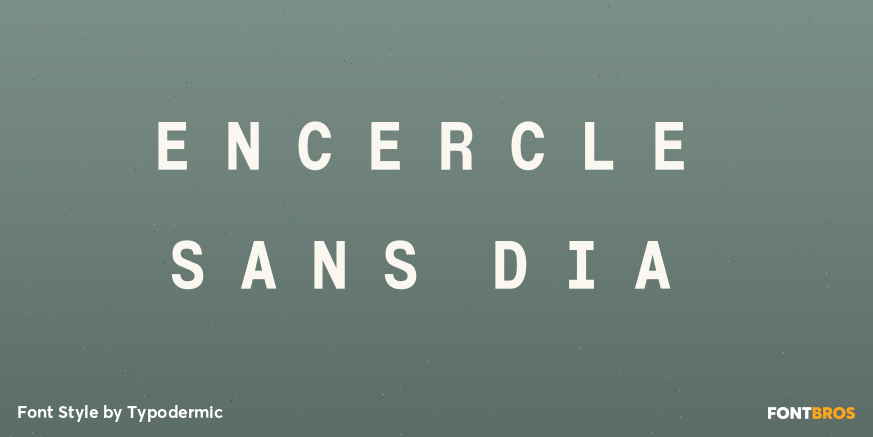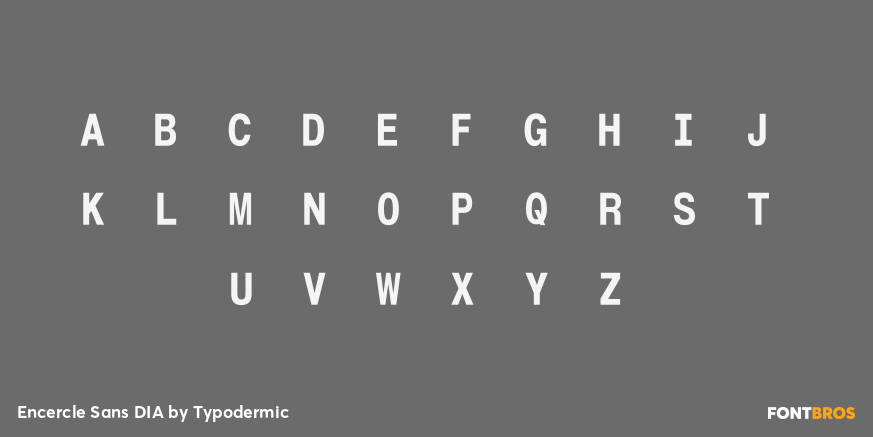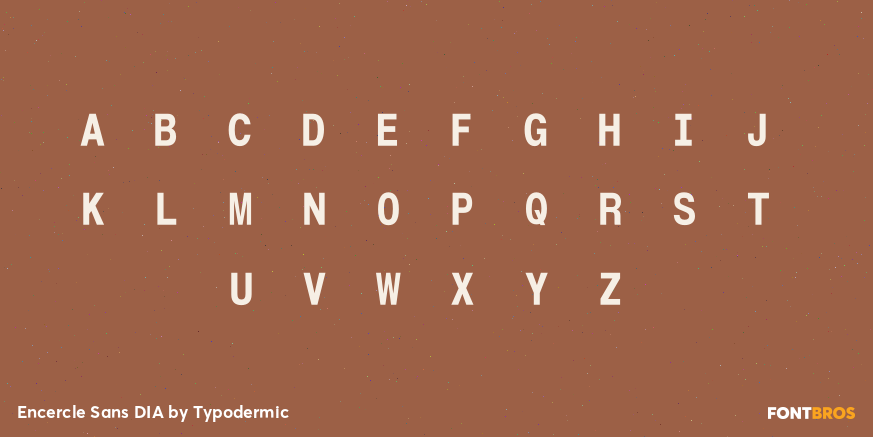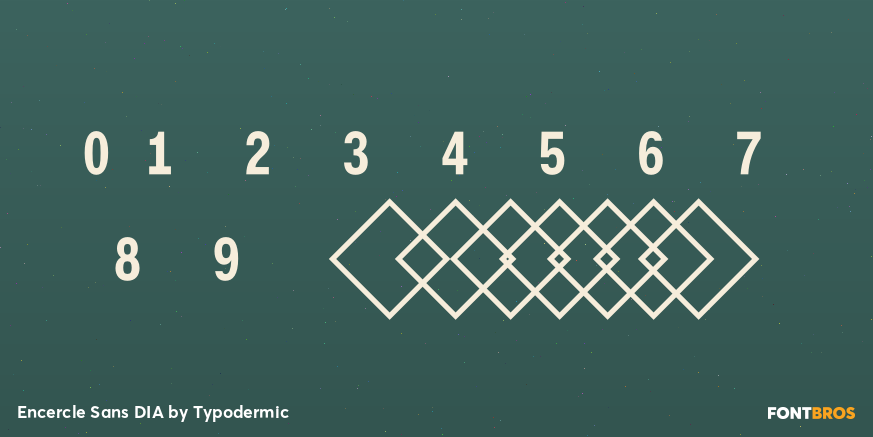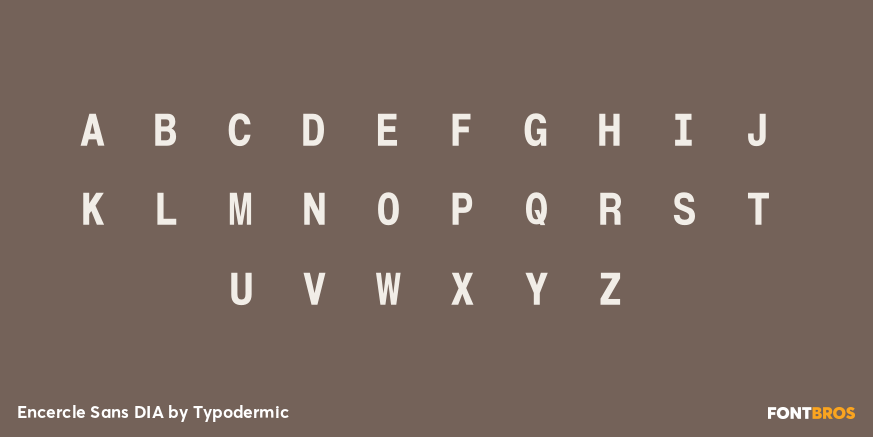
Encercle Sans DIA
Buy NowEncercle Sans DIA places each label in a crisp diamond frame, adding a distinct angled silhouette while keeping the contents editable as text. DIA Bold turns that outline into a solid inverse diamond with light lettering. Its purpose is emphasis through reversal, not a simple increase in stroke weight.
Use DIA for decision points in process diagrams, exception markers in infographics, branching objectives in tabletop games, and transfer points on schematic maps. It targets searches for a diamond-number font, decision-marker font, or editable flowchart-callout typeface.